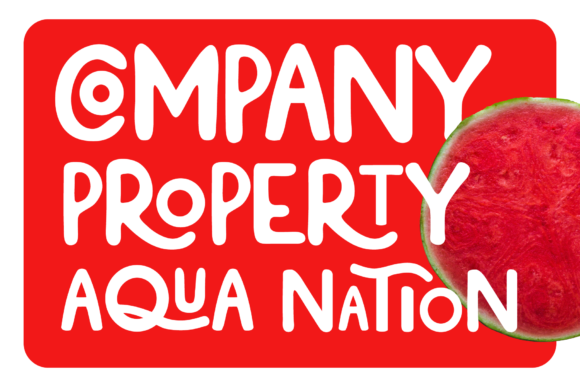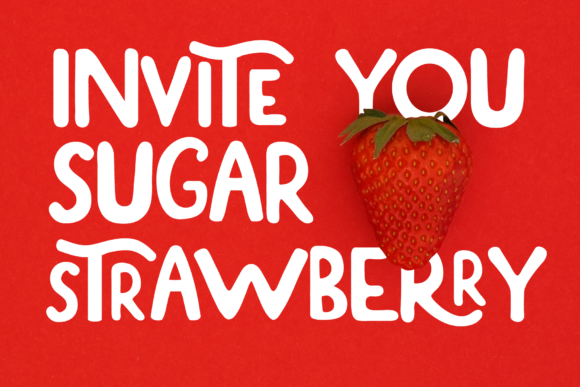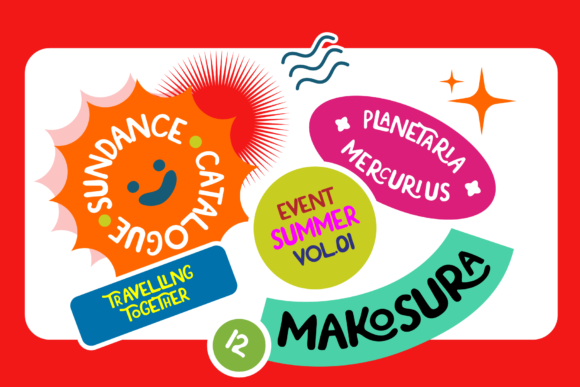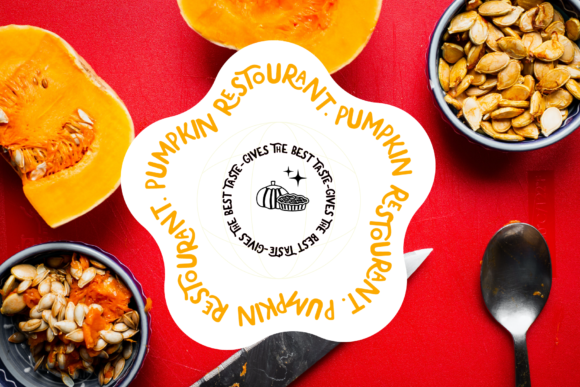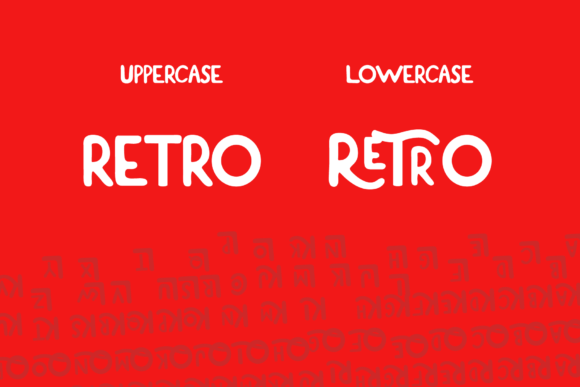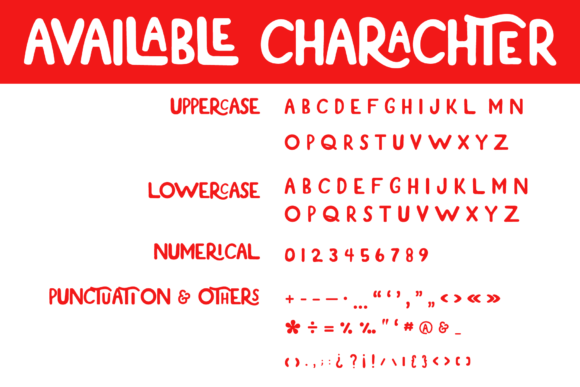
Introduction to Sirukota Font
Sirukota is a quirky and unique display typeface with a lively theme.
With a couple of special characters, this font will give any of your projects a heart and soul It is PUA encoded and compatible with tools such as Adobe Illustrator, Photoshop, even Microsoft Word.